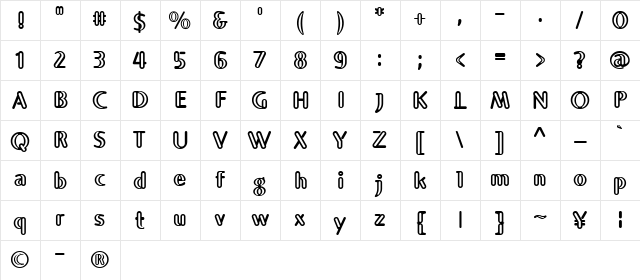
Chape Open Font Preview
Chape Open
Chape Open Font Details
| Style | Open |
Design Context for Chape Typeface
Chape offers clean, dependable letterforms without strong stylistic allegiance, making it a practical choice for designers who need flexibility.